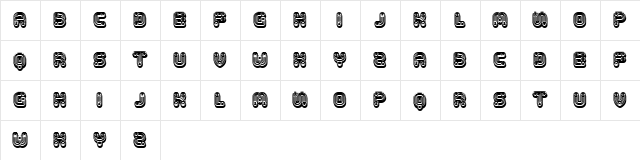
Tuyaux Dark Regular
Design Context for Tuyaux Dark Typeface
Tuyaux Dark is a composed and adaptable typeface that performs quietly and consistently across a wide range of design contexts.